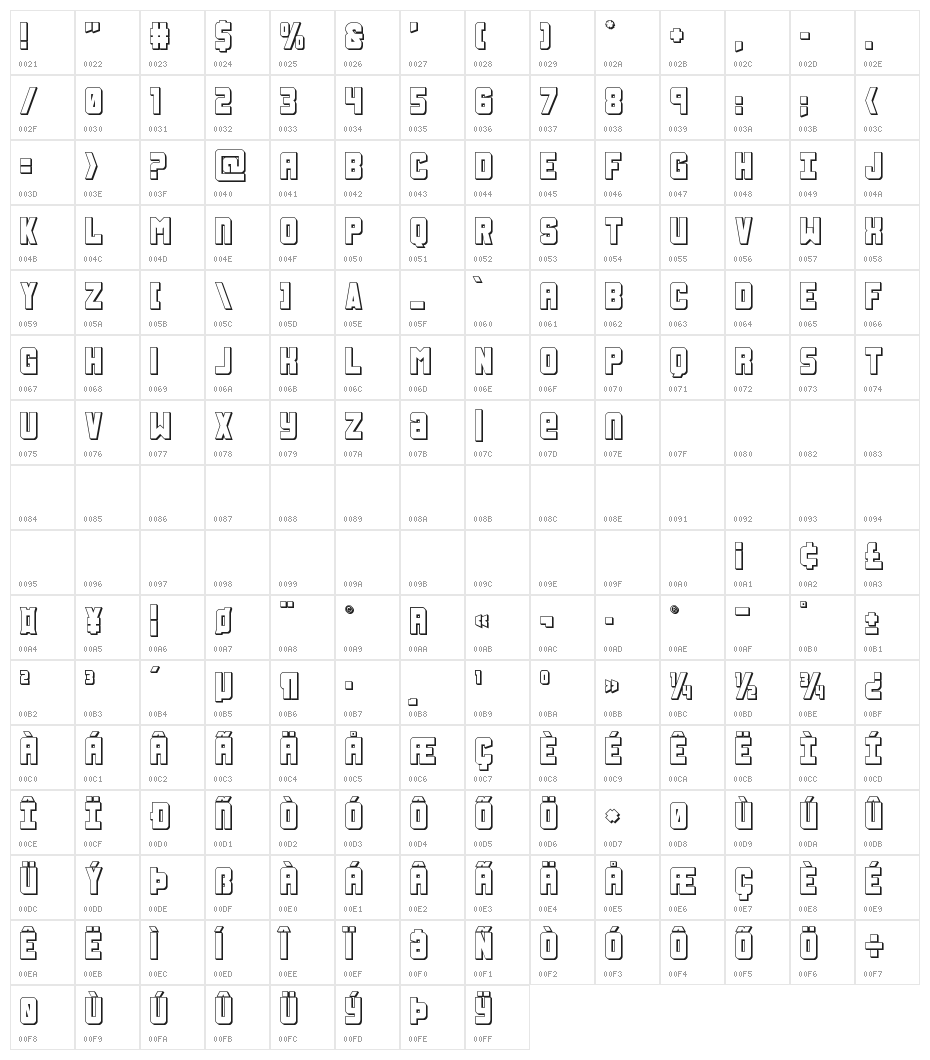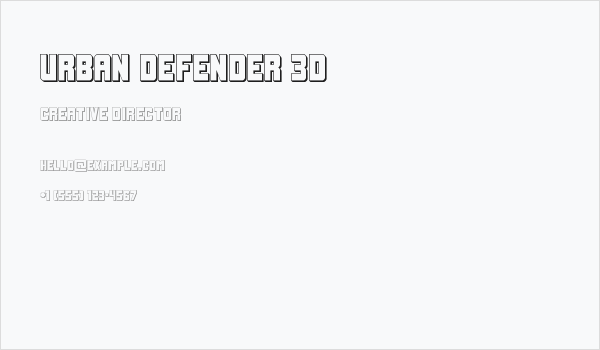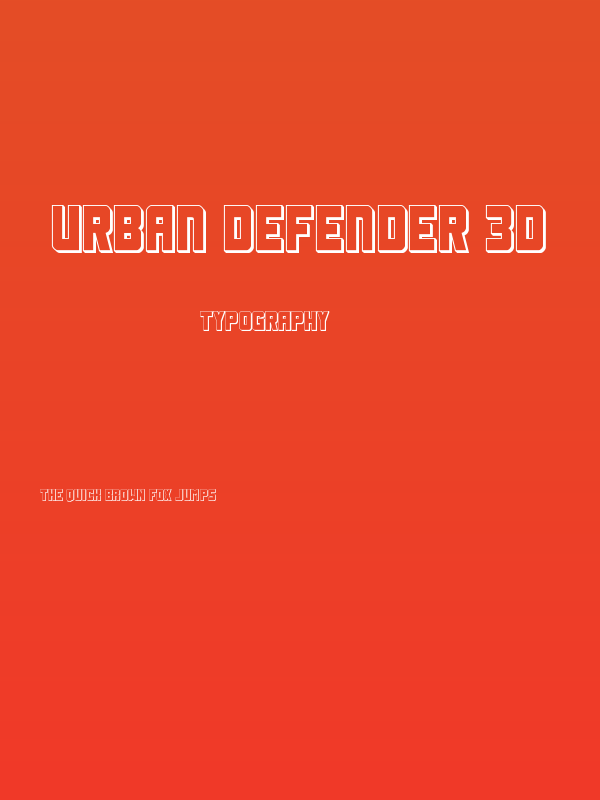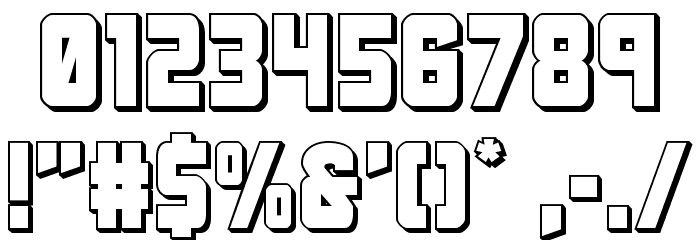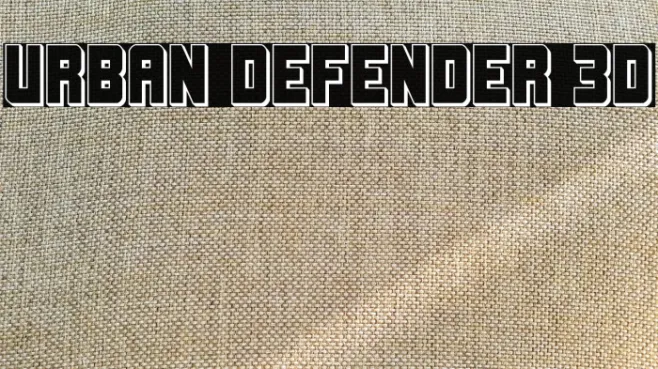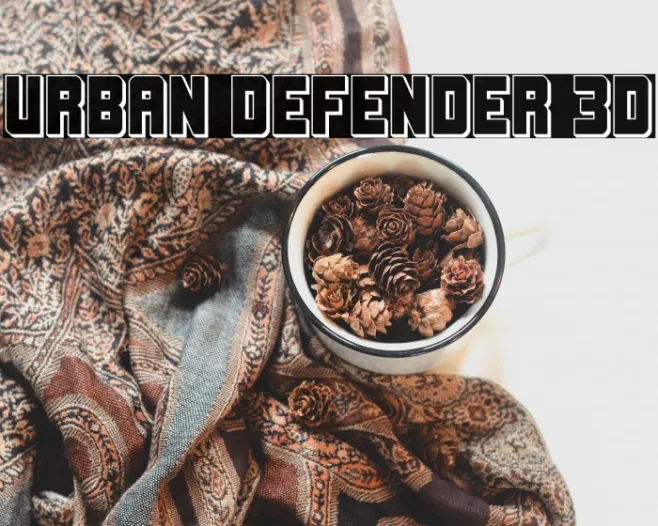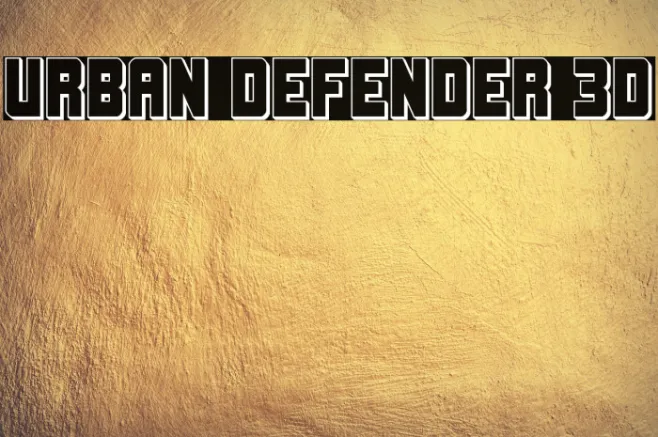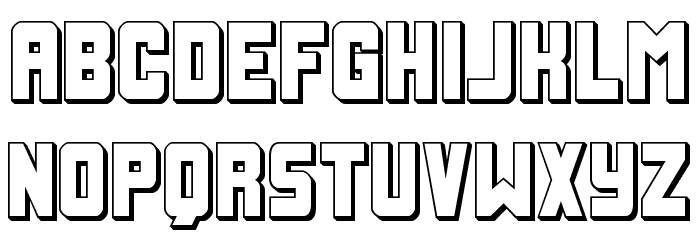
Urban Defender 3D Font
Urban Defender 3D Description
This font features a bold, three-dimensional design with a strong, geometric structure. The characters are outlined, giving them a distinct, blocky appearance that stands out. The uppercase letters are uniform in height, while the numbers and special characters maintain the same bold style. The font's 3D effect is achieved through a clever use of shadowing, creating a sense of depth and dimension. This style is reminiscent of urban and industrial themes, making it suitable for projects that require a modern and edgy look. The font's clean lines and sharp angles contribute to its overall impactful and assertive presence.
| Proposed Projects | Ideal for posters, signage, video game graphics, and branding materials that require a modern, edgy aesthetic. |